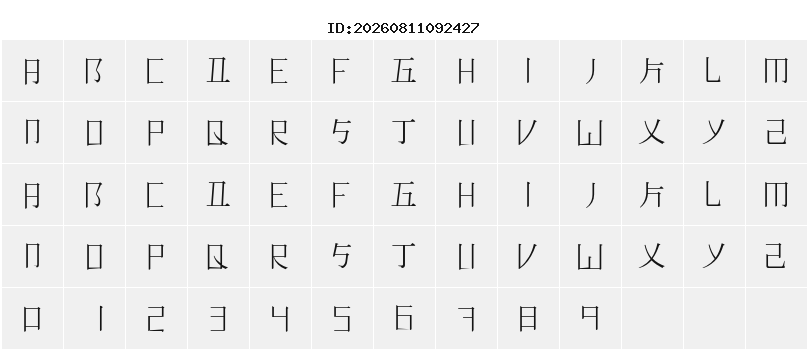
Romaji Mincho Preview
• Font Name: Romaji Mincho
• Full Font Name: Romaji Mincho
• Designer: Adrian Candela
• Description: Romaji Mincho is a font by Adrian Candela, designed by Adrian Candela in 2013.
About Romaji Mincho.otf
Romaji Mincho.otf is a modern, elegant sans-serif font designed for ultimate readability and visual harmony. Perfect for branding, headlines, web design, and print materials.